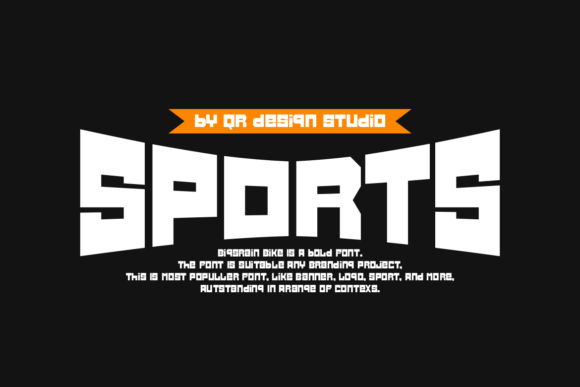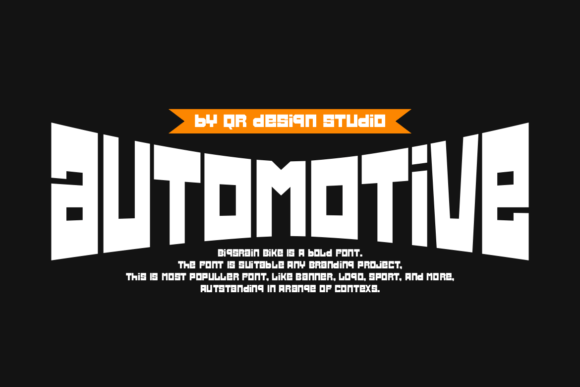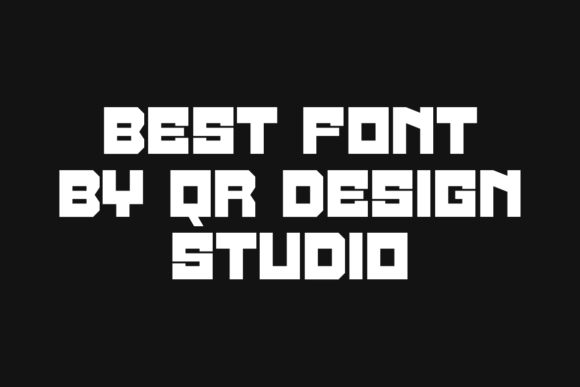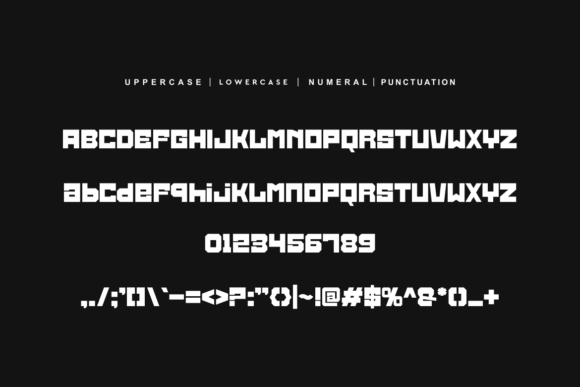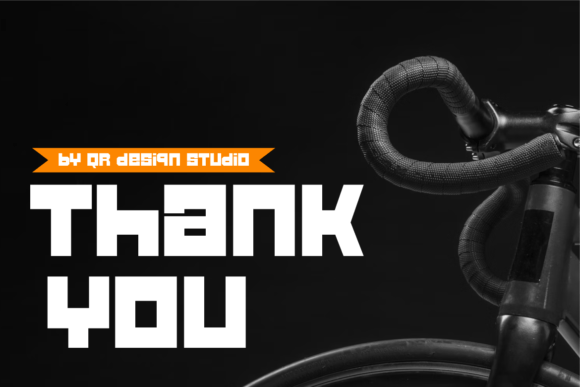
Introducing Bigsrain Bike Font: The Ultimate Bold and Assertive Sans Serif Font
Are you tired of using the same old fonts in your designs? Look no further than Bigsrain Bike Font, a bold and assertive sans serif font that’s sure to elevate your creations. Whether you’re a designer, crafter, or simply someone who loves to dabble in typography, Bigsrain Bike is an incredible asset to add to your font library.
What is Bigsrain Bike Font?
Bigsrain Bike Font is a sans serif font that’s designed to make a statement. Its bold and assertive style is perfect for grabbing attention and conveying confidence. With its clean lines and modern aesthetic, Bigsrain Bike is versatile enough to be used in a wide range of applications, from logos and branding to posters, flyers, and more.
Key Features of Bigsrain Bike Font
- Bold and Assertive Style: Bigsrain Bike Font is designed to stand out from the crowd. Its bold and assertive style makes it perfect for headlines, titles, and any other text that needs to grab attention.
- Clean Lines and Modern Aesthetic: The clean lines and modern aesthetic of Bigsrain Bike Font make it perfect for designs that require a sleek and contemporary look.
- Versatile: Bigsrain Bike Font is versatile enough to be used in a wide range of applications, from logos and branding to posters, flyers, and more.
- Easy to Read: Despite its bold style, Bigsrain Bike Font is easy to read, making it perfect for body text as well as headlines.
Why You Need Bigsrain Bike Font in Your Library
So why should you add Bigsrain Bike Font to your library? Here are just a few reasons:
- Elevate Your Designs: Bigsrain Bike Font has the potential to elevate any creation, adding a touch of sophistication and style to your designs.
- Stand Out from the Crowd: With its bold and assertive style, Bigsrain Bike Font is sure to help your designs stand out from the crowd.
- Save Time: With Bigsrain Bike Font, you can create professional-looking designs in no time. Its ease of use and versatility make it a great addition to any design workflow.
How to Use Bigsrain Bike Font
Using Bigsrain Bike Font is easy. Here are a few tips to get you started:
- Use it as a Headline Font: Bigsrain Bike Font is perfect for headlines and titles. Use it to grab attention and draw the reader in.
- Pair it with Other Fonts: Bigsrain Bike Font pairs well with other fonts, making it easy to create a cohesive look.
- Experiment with Different Sizes and Colors: Don’t be afraid to experiment with different sizes and colors. Bigsrain Bike Font is versatile enough to be used in a wide range of applications.
In conclusion, Bigsrain Bike Font is a bold and assertive sans serif font that’s sure to elevate your designs. With its clean lines, modern aesthetic, and versatility, it’s perfect for designers, crafters, and anyone who loves typography. Add Bigsrain Bike Font to your library today and take your designs to the next level.